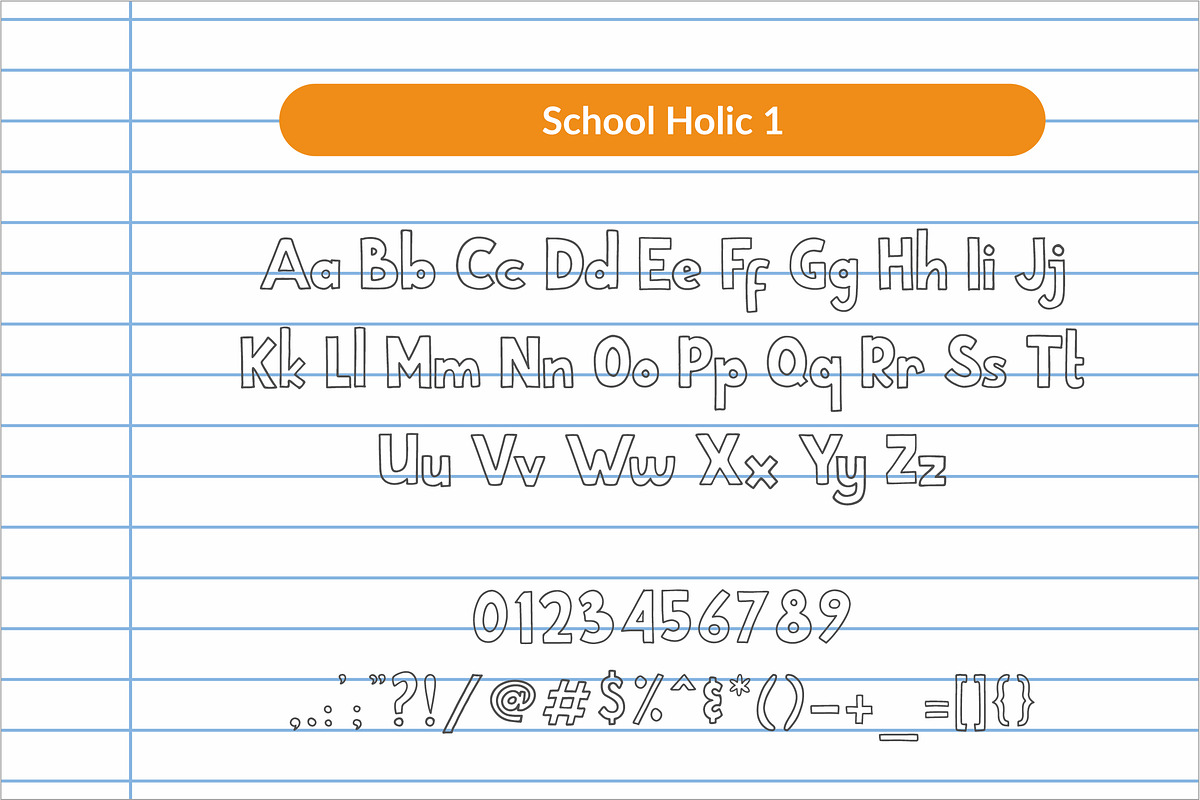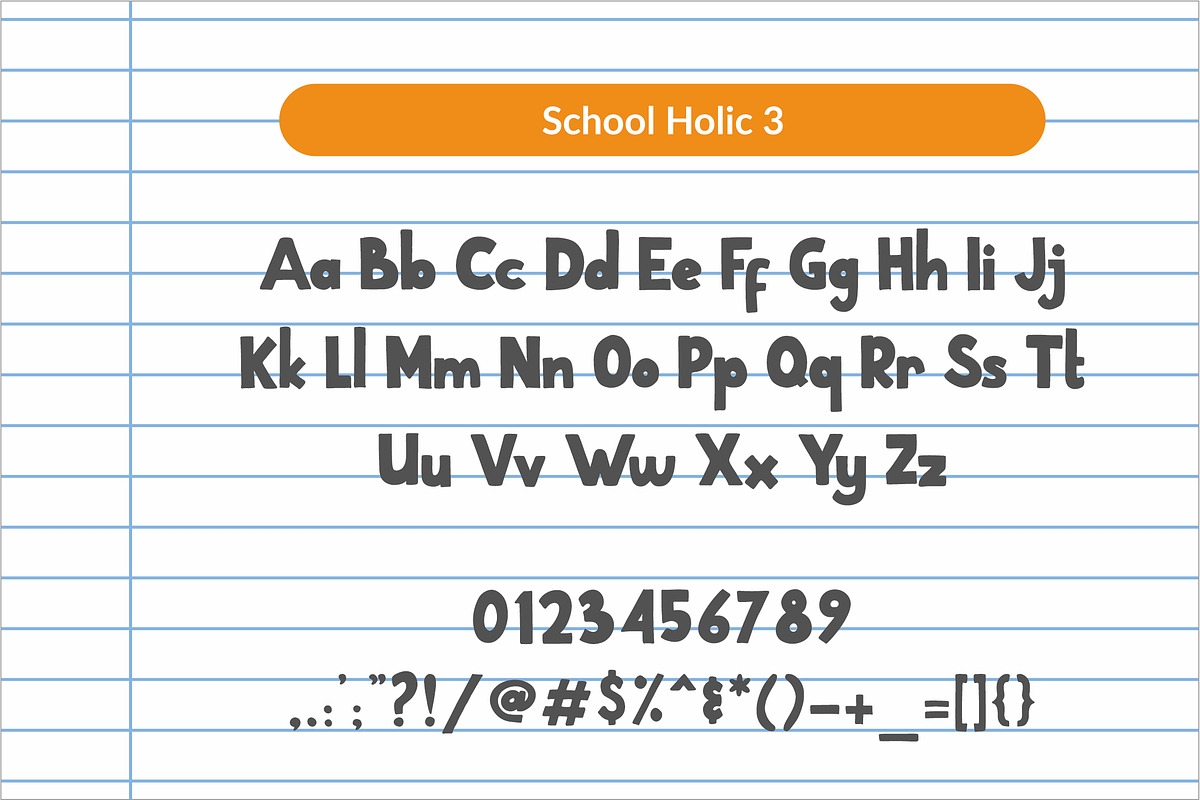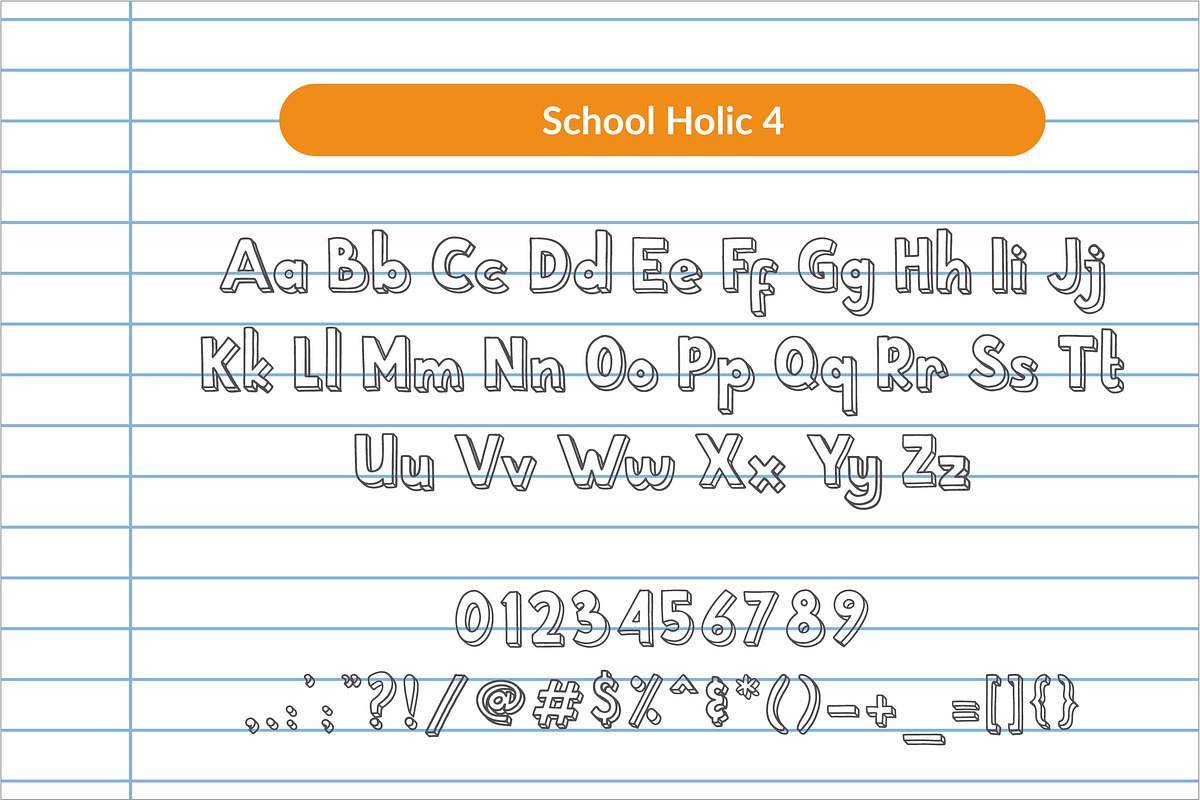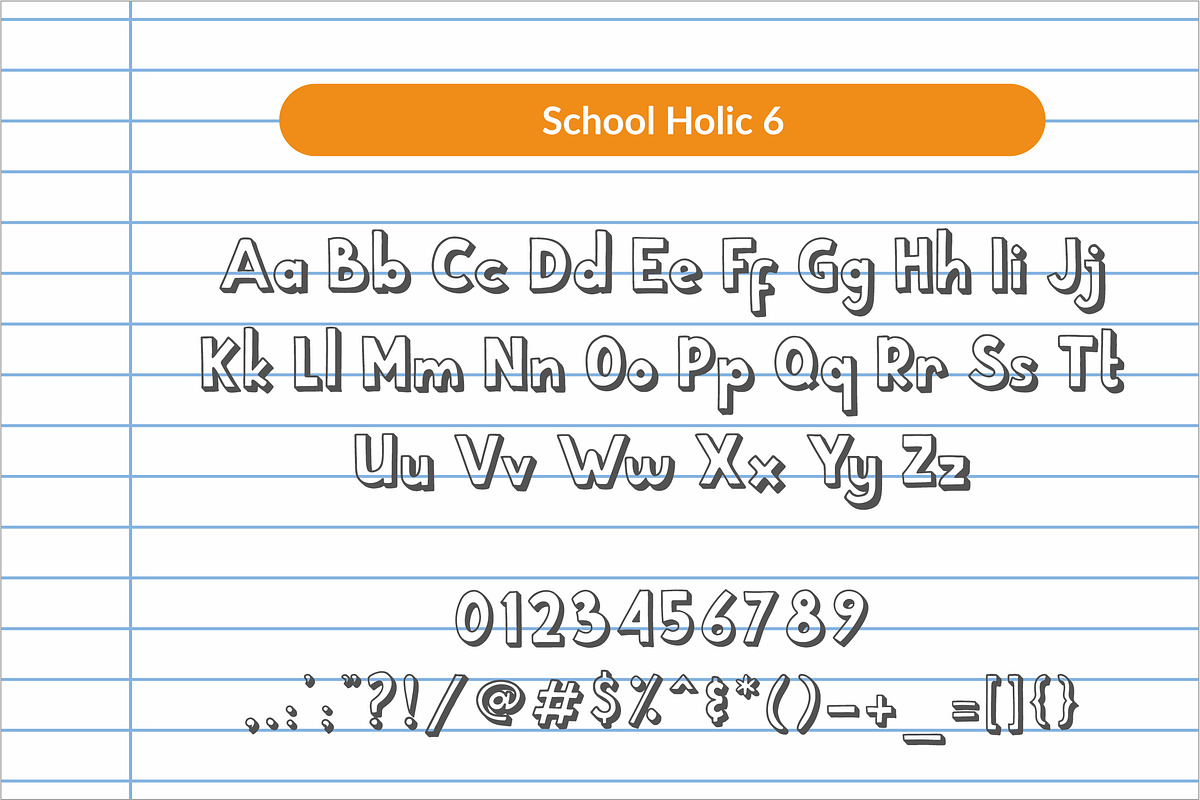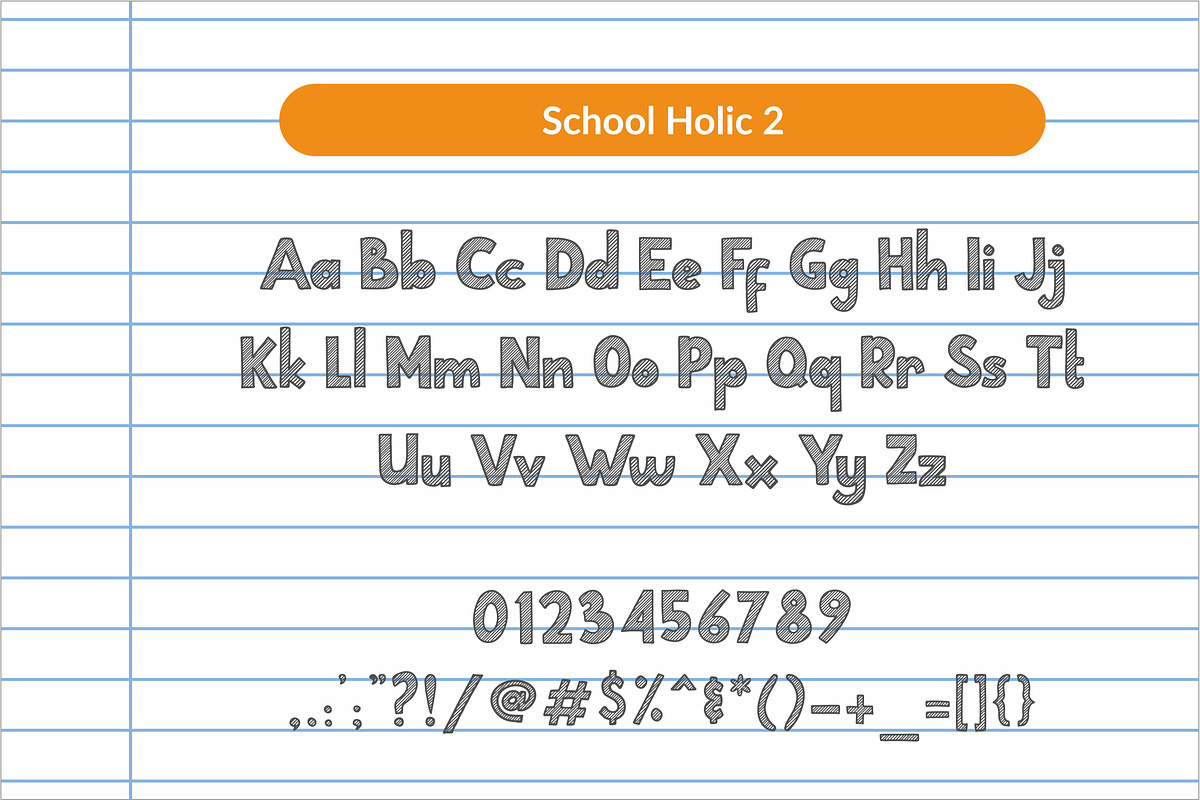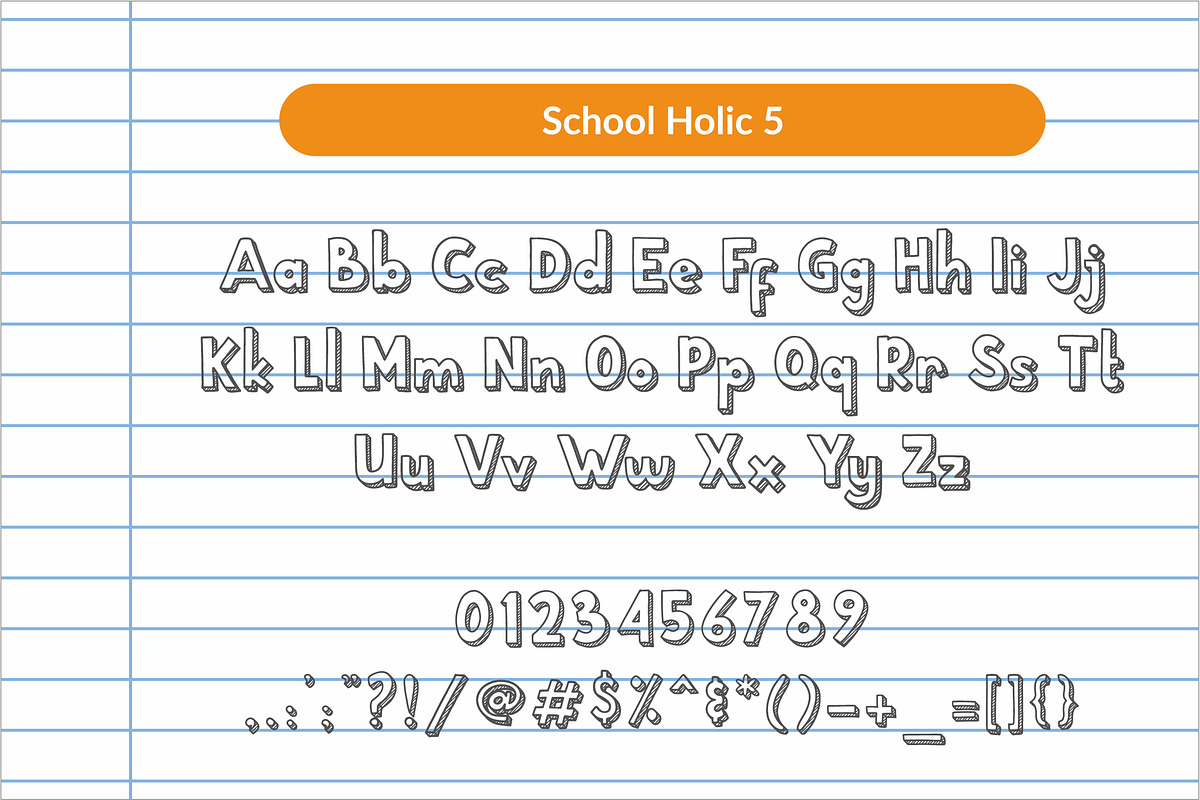
School Holic | 7 Font Styles + Bonus
School Holic is handmade font, so the stroke is looks natural. This font is come with 7 styles, you can choose for your special project!